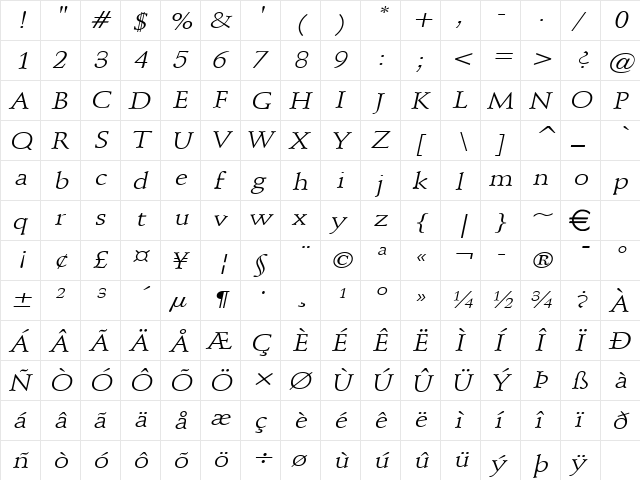
SchroederWide Italic
Design Context for SchroederWide Typeface
SchroederWide is a composed and adaptable typeface that performs quietly and consistently across a wide range of design contexts. The dynamic lean of this cut emphasises speed and emphasis in any layout.
Pro Tip: Try SchroederWide for annotation and caption copy alongside an upright companion — the contrast in angle creates a dynamic but ordered typographic system.